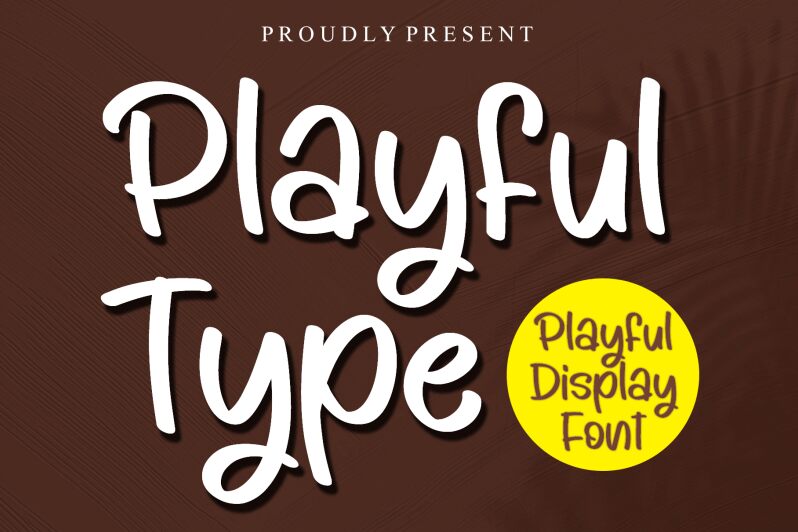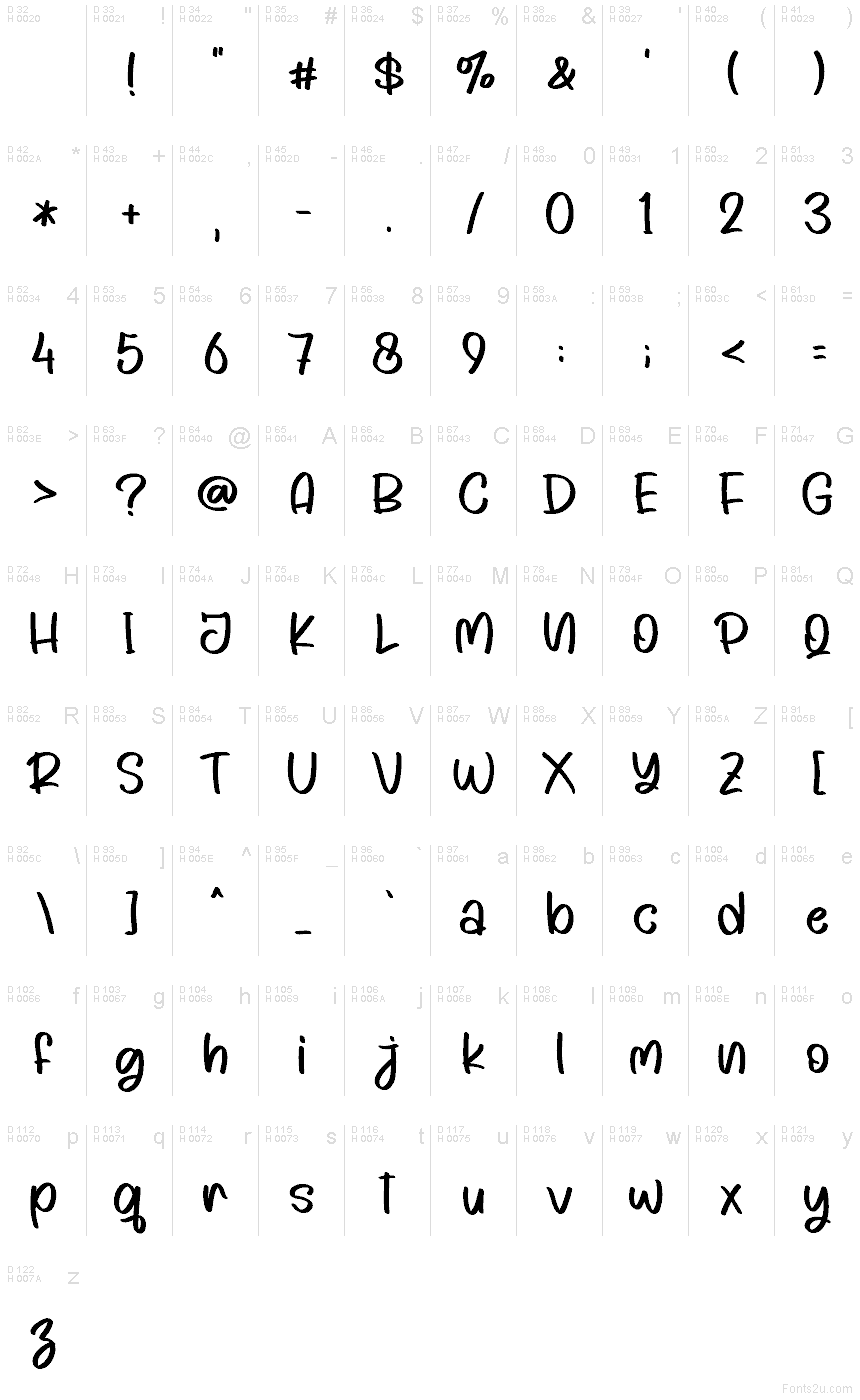
Playful Type font by Letterafa Studio is a free handwritten font that captures the feel of a marker scrawled with lots of energy and care. Its rounded strokes, gentle bounce, and slightly chunky curves make every word feel friendly and approachable, like a note on a fridge or a doodle in a notebook. The letters link visually without turning messy, so you get that casual, hand-done warmth while still keeping things easy to read at a glance.
Using Playful Type, you can bring that cozy, human touch to kids’ book covers, classroom posters, birthday invitations, logos for playful brands, social media graphics, stickers, and handmade product packaging. This free font shines when used big and bold, where its curves and loops can breathe. For a clean contrast, pair it with a simple sans serif for body text or captions to keep the design grounded while the headings stay lively.